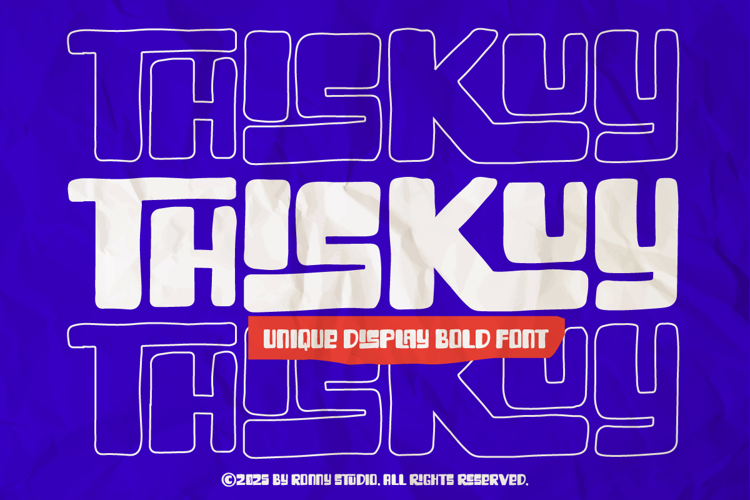
Thiskuy - Unique Display Bold Font
🎨 Introducing: Thiskuy – Unique Display Bold Font
Bring your designs to life with Thiskuy, a bold and playful display font that blends modern curves with a retro soul. Its strong personality and dynamic shapes make it perfect for eye-catching headlines, striking posters, and impactful branding.
Packed with a variety of unique ligatures, Thiskuy offers endless creative possibilities—allowing each word to feel fresh, fun, and custom-made. Whether you’re aiming for a quirky, energetic vibe or a bold statement, Thiskuy delivers a look that’s both memorable and versatile.
✨ Font Features:
• Bold and unique display style
• Extensive set of creative ligatures
• Uppercase, lowercase, numbers, symbols & punctuation